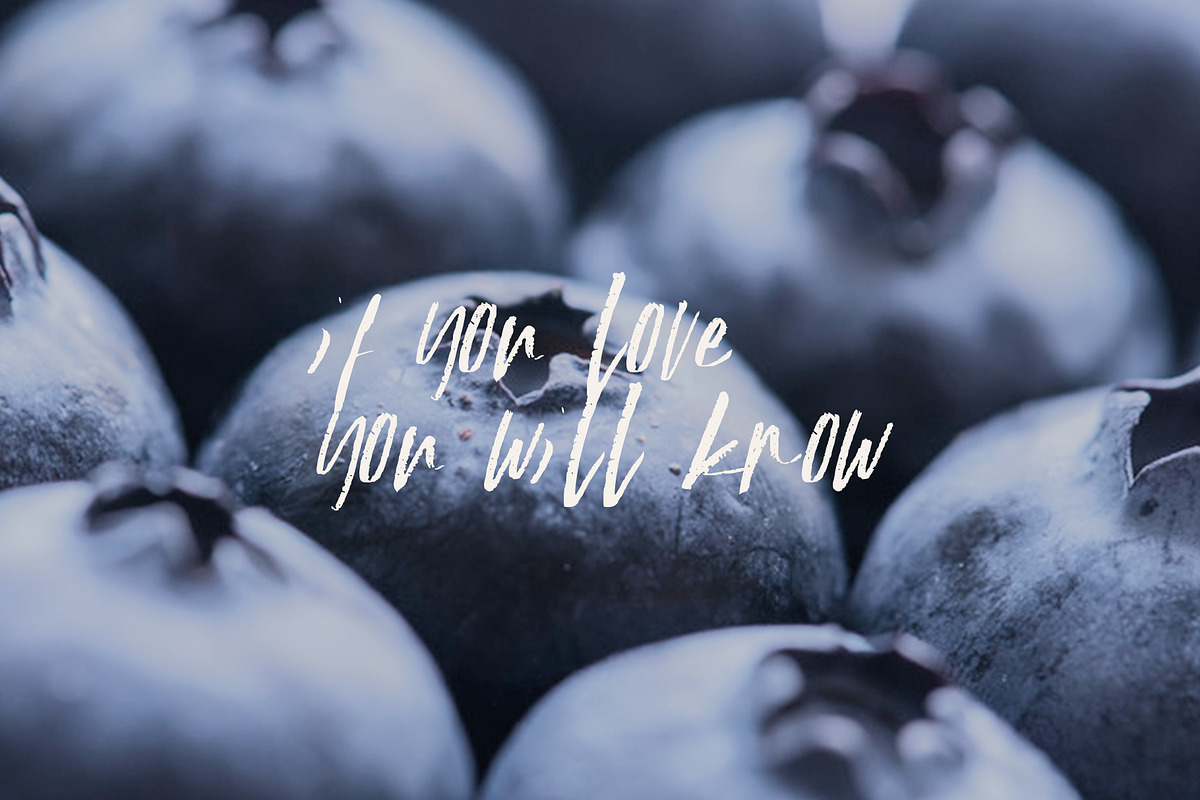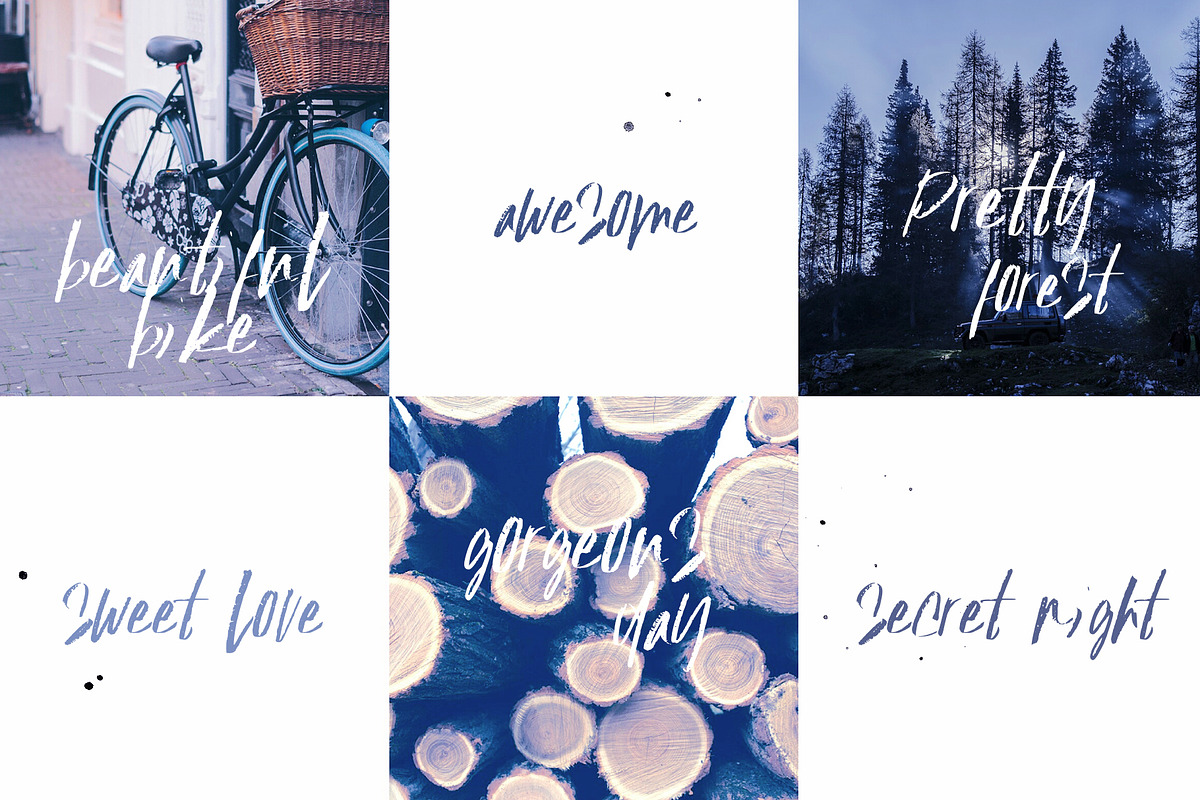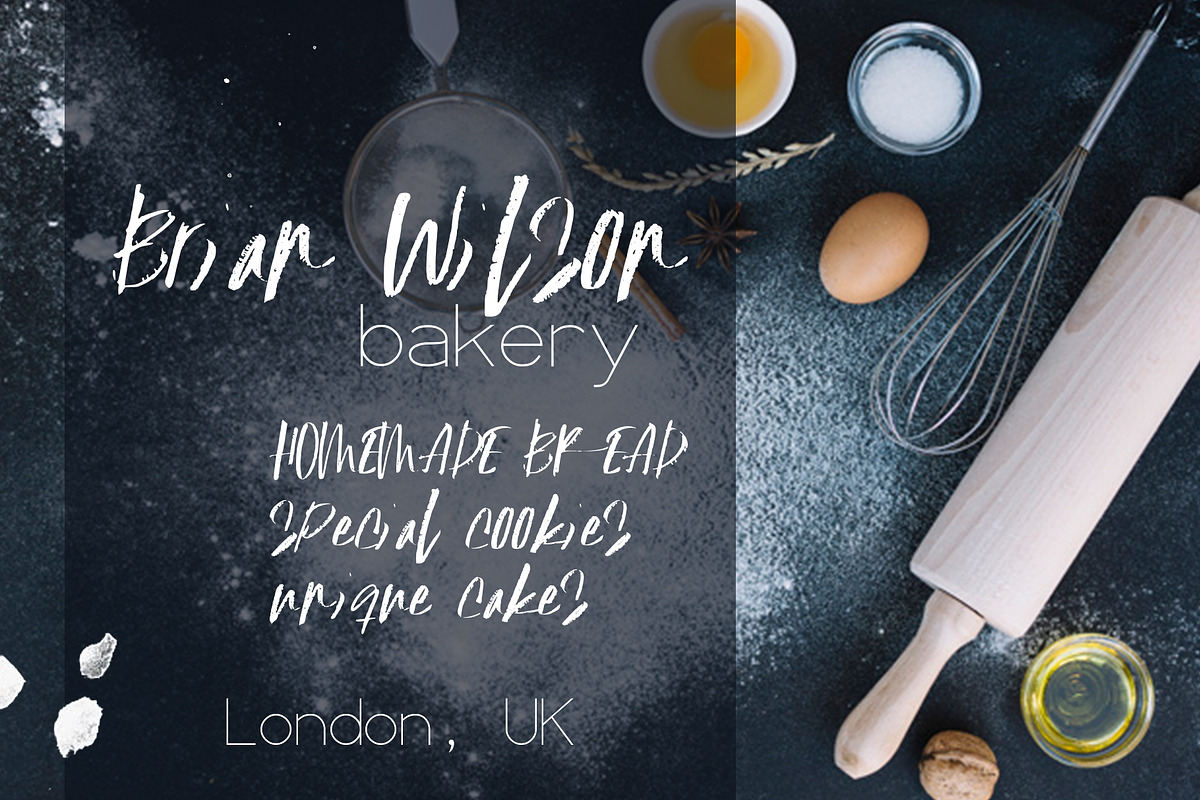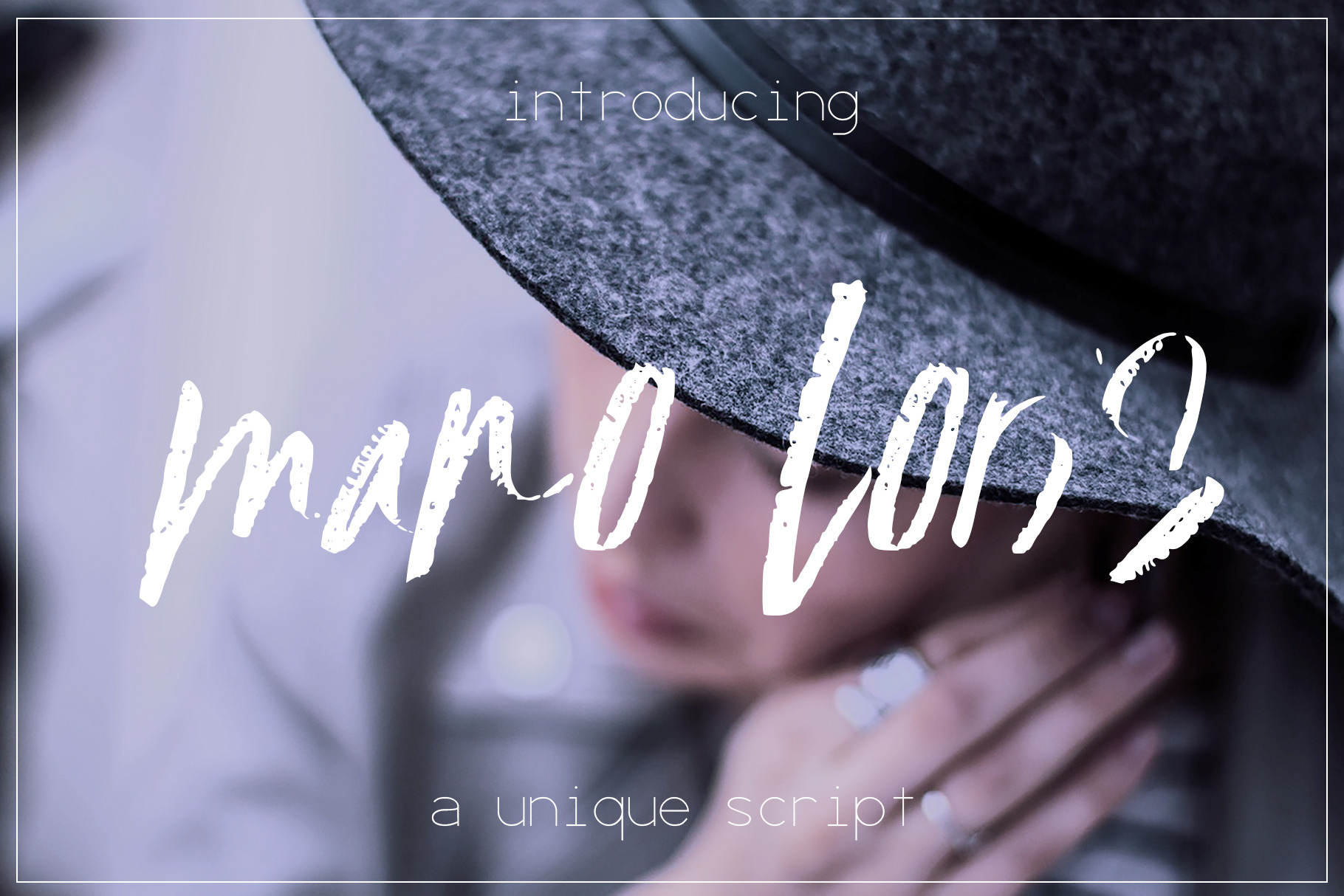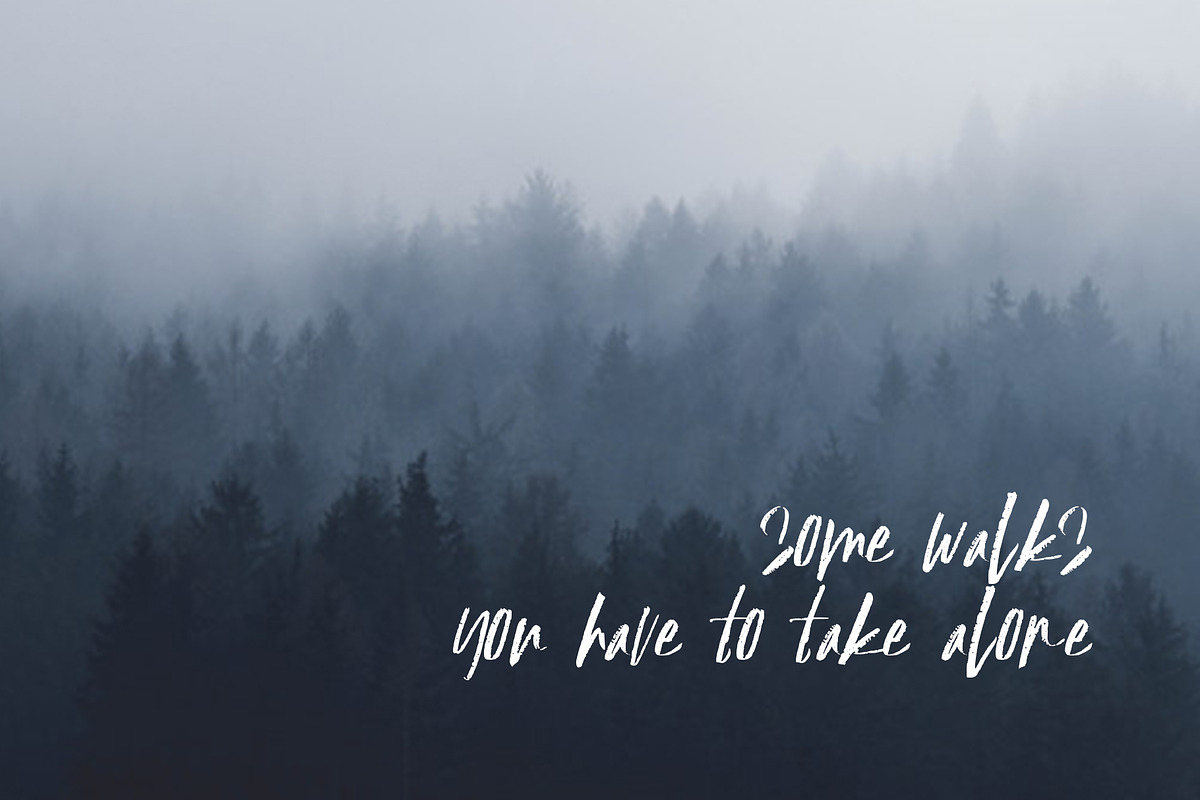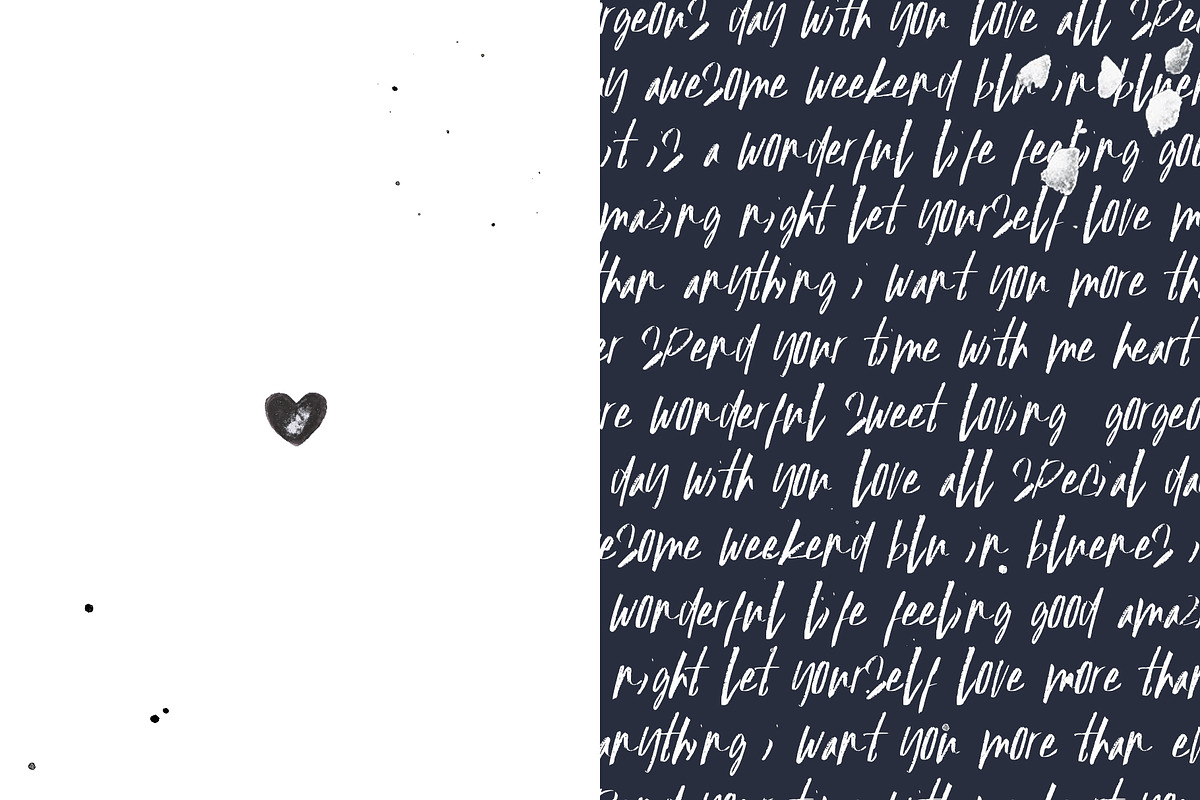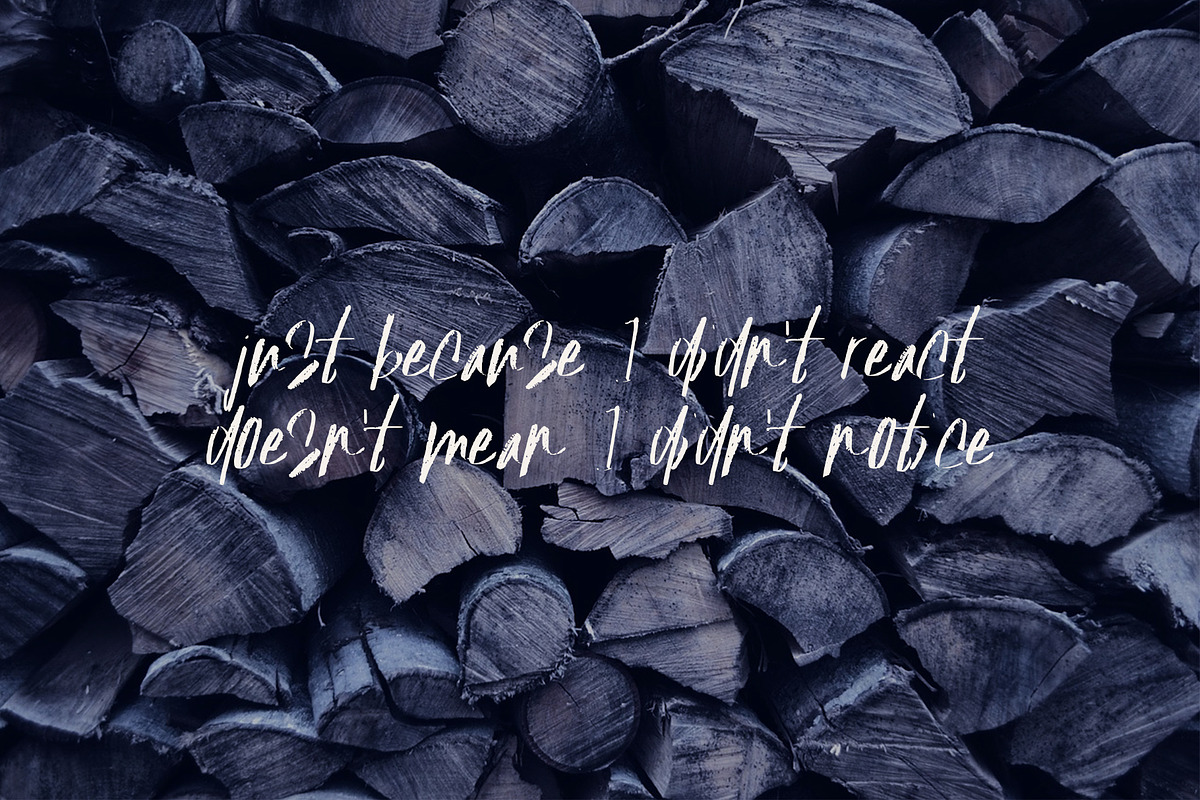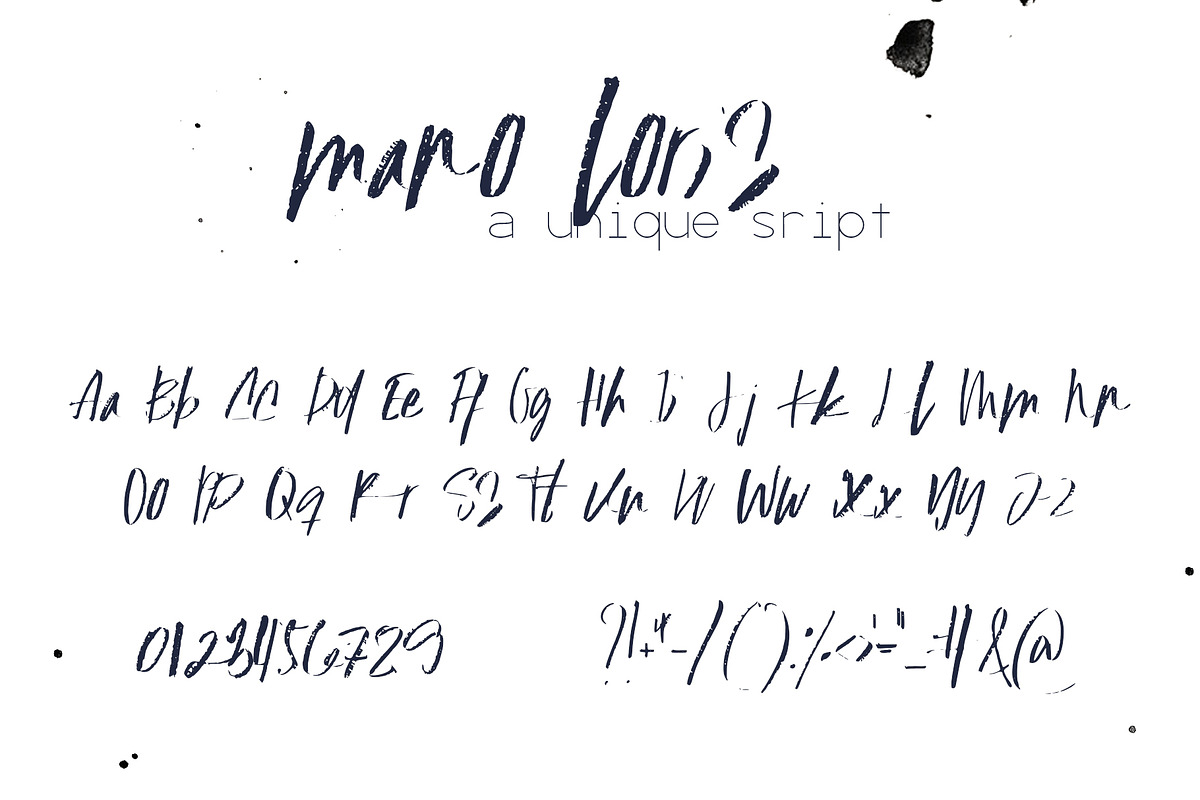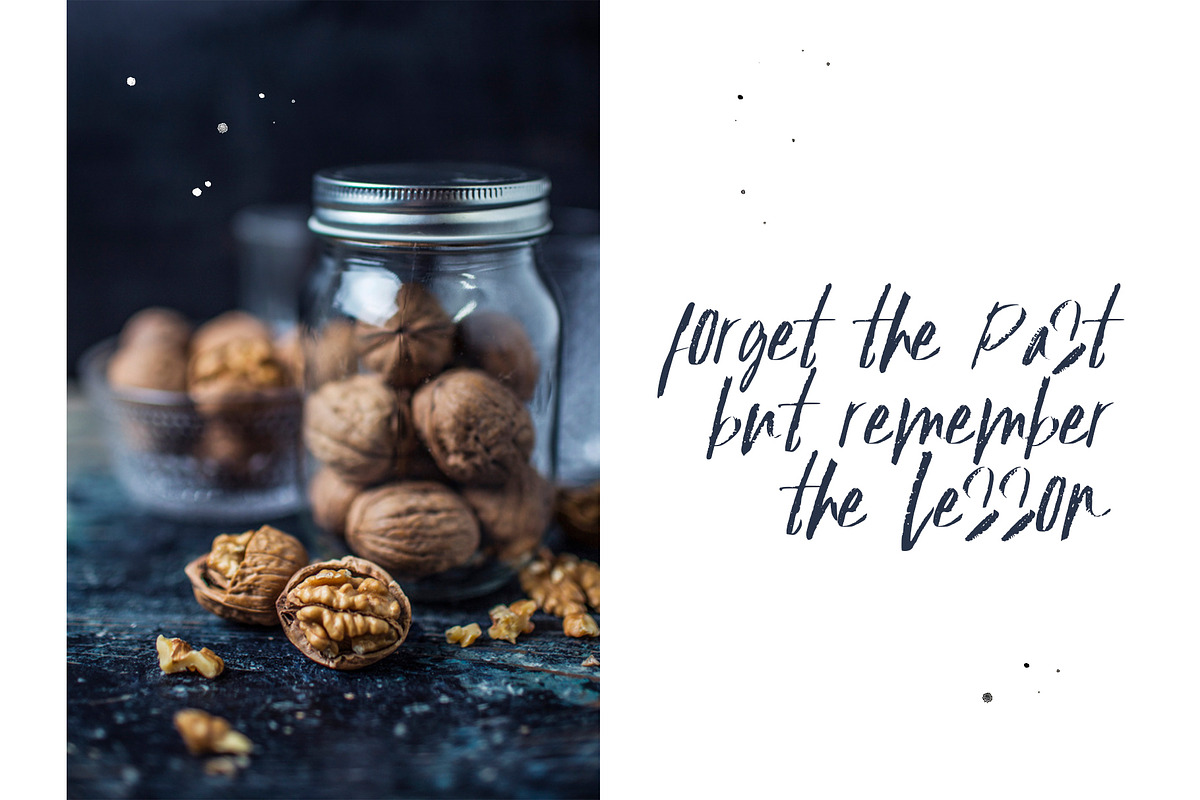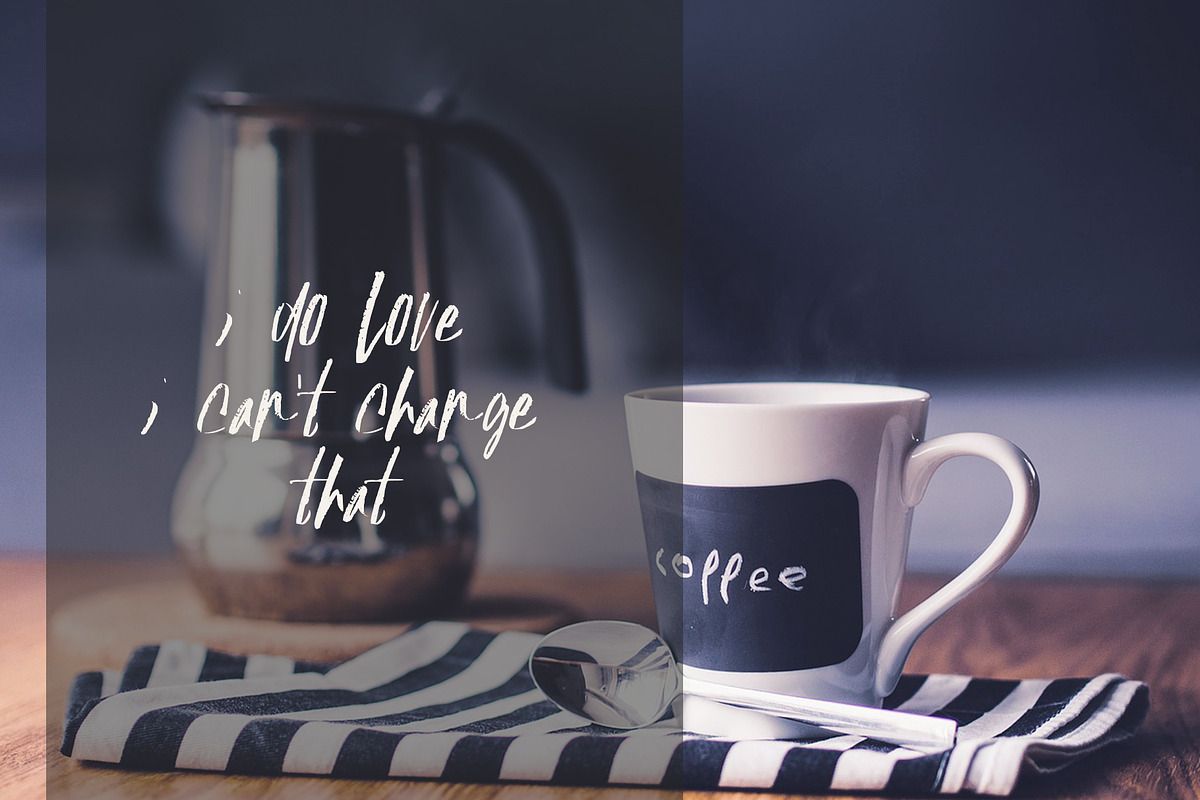
Mano Loris Font
Introducing Mano Loris, a gorgeous unique handwritten font with light decorative curvy lines.💗 Perfect for any calligraphic and logo designs, wedding and birthday invitations.
Mano Loris font contains upper & lowercase characters, full set of punctuation and numerals.